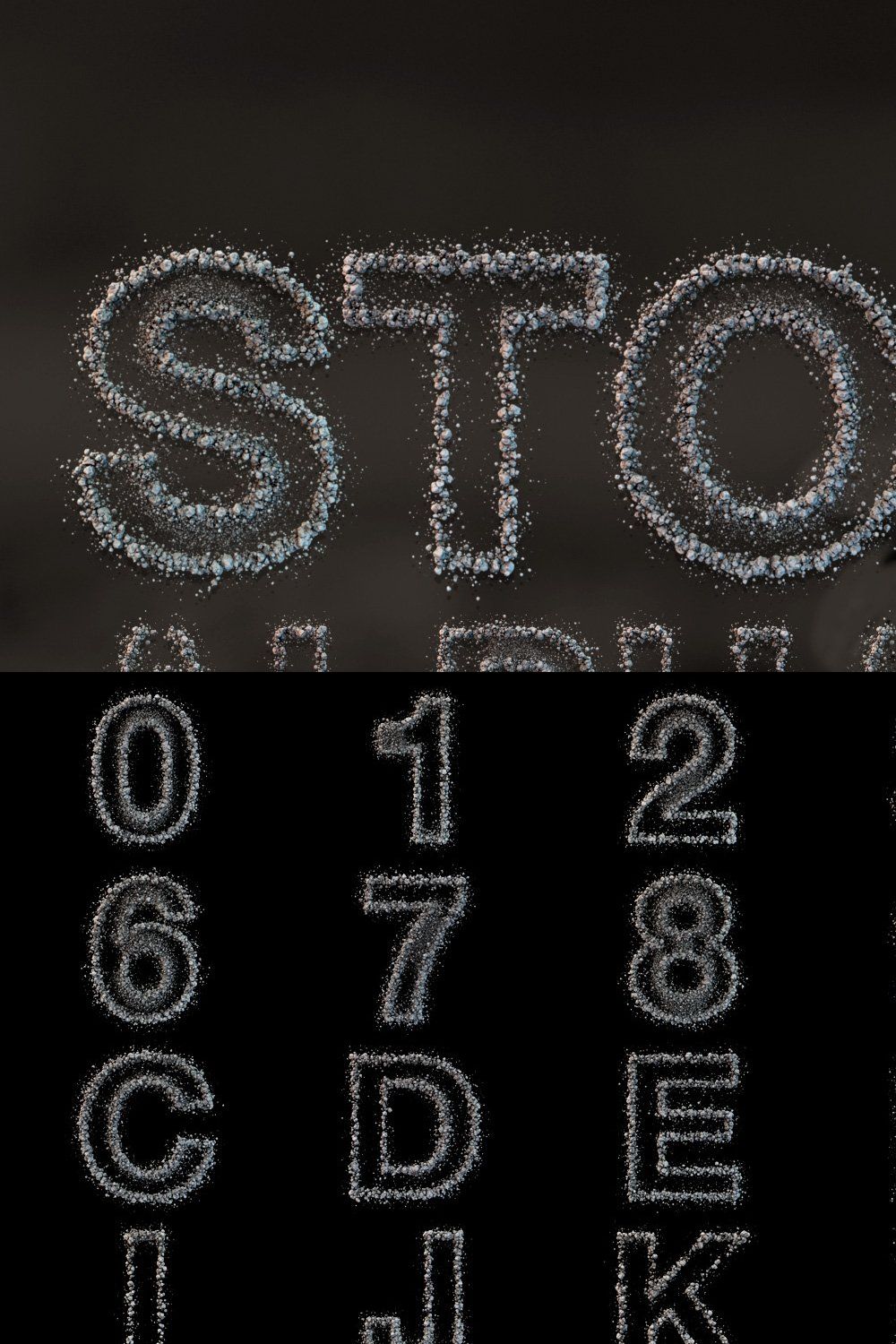
Stone Font
Each letter is modelled and rendered in a 3D Application, also converted into an Opentype SVG (Color) Font.
Basic western uppercase letters
Numbers